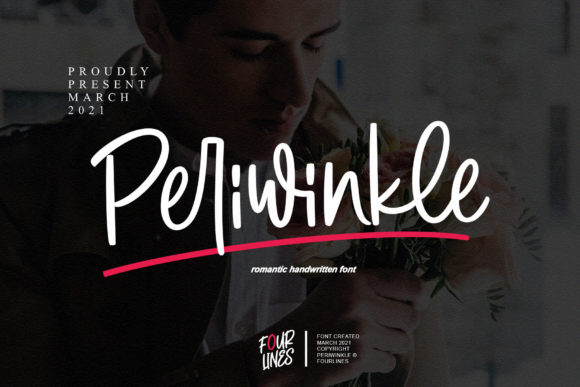
Immerse yourself in the world of Periwinkle Font, a captivating script font that exudes elegance and romance. Created by the talented Fourlines.design, Periwinkle is a font crafted to evoke emotions and bring your creative visions to life. With its graceful curves and delicate strokes, this font is the perfect choice for projects seeking a touch of sophistication and charm.
Unleash the boundless possibilities of Periwinkle Font and embark on a journey of creative expression. Whether you're crafting enchanting invitations, captivating social media posts, or designing heartfelt greeting cards, Periwinkle Font will undoubtedly elevate your projects and leave a lasting impression on your audience. Its versatility extends to book covers, posters, and branding materials, adding a touch of allure and intrigue to your designs.
The allure of Periwinkle Font lies in its innate ability to evoke emotions and create an intimate connection with your readers. Its fluid strokes and subtle flourishes lend a personal touch to your words, inviting readers to delve deeper into the narrative and become fully immersed in the story.
Tap into the power of Periwinkle Font and unlock a world of creative possibilities. Its timeless appeal and enchanting aura will captivate your audience, leaving them spellbound by your creations. Let Periwinkle Font be your muse as you embark on a journey of storytelling and visual expression.